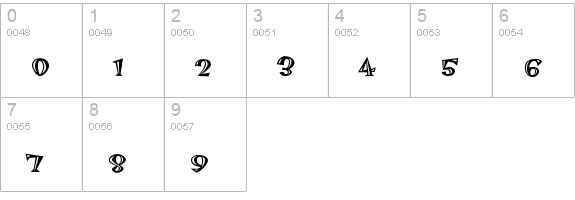
HotsyTotsy-Hi-Lite-MvB Font Details
HotsyTotsy-Hi-Lite-MvB font is a whimsical and playful typeface that exudes charm and character. Its unique design features tall, slender letterforms with a high-contrast outline that adds a touch of elegance and sophistication. This font is perfect for creating eye-catching headlines, signage, and branding materials that demand attention. What makes HotsyTotsy-Hi-Lite-MvB font even more appealing is that it is available for free download at FontsMarket.com. This means you can easily access this delightful typeface and use it in your projects without any cost. Whether you're a designer looking to add a fun and stylish element to your work or a creative individual seeking a unique font for personal use, HotsyTotsy-Hi-Lite-MvB font is sure to inspire and delight. Download it today and let your creativity shine with this fabulous free font!